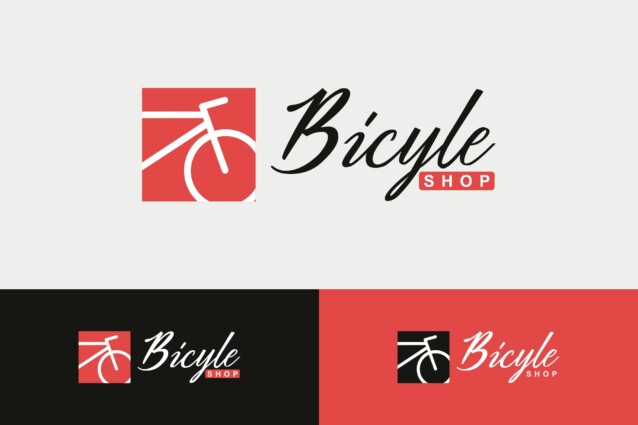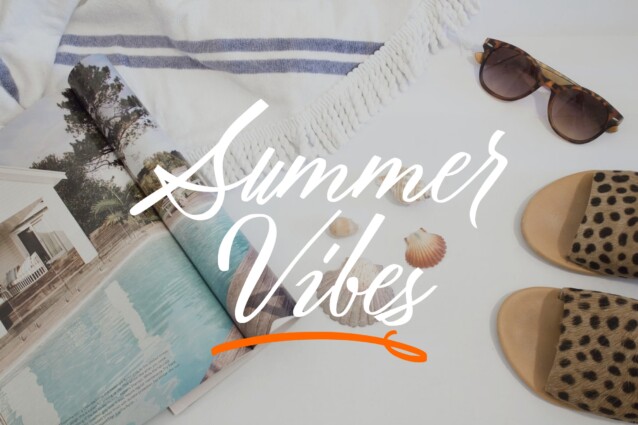
Rackutty Font
Rackutty Font is a stylish signature script that have beautifully crafted ligatures and alternates, perfect for use in product design, invitations, greetings, logo designs and more.
Fonts use the OpenType Standard Ligature feature to automatically distinguish lowercase letters and consecutive numbers (use separate glyphs) they also automatically distinguish characters as they are separated by other letters.
Smart ligatures Other subtle but hopefully useful features include some ligatures which also make character connection smoother, in addition there are some unique swashes and can be used directly by just typing (a + underscore + underscore) but this is limited to only 14 swashes .